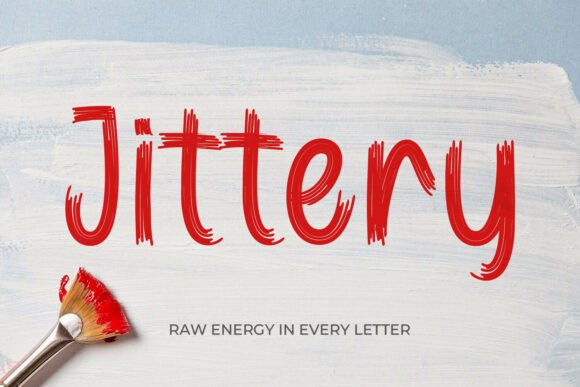
Jittery: A Display Font That Adds Authentic Energy to Your Brand
As a small business owner who designs my own labels, social posts, and packaging—often after the kids are asleep—I’ve learned that font choice isn’t just about “looking nice.” It’s about showing up consistently, clearly, and confidently across every customer touchpoint. That’s why Jittery stood out to me: it’s not another sterile, overused display font. It’s a hand-drawn brush typeface pulsing with raw energy and authentic texture—designed to embrace the beauty of chaos, not hide from it.
The “trembling” stroke style gives Jittery its distinctive voice: slightly uneven, human-made, full of movement. It feels alive—not stiff, not robotic, not overly polished. That makes it ideal for brands that want to signal creativity, warmth, independence, or craft-focused values. Think handmade candle makers, indie coffee roasters, wellness coaches, ceramic studios, or boutique skincare lines. If your customers respond to honesty over perfection, Jittery helps you speak that language visually.
Where Jittery Works Best in Real Business Materials
Because it’s a display font, Jittery shines where impact matters most—not as body text, but as intentional visual punctuation. I use it for:
It’s also surprisingly versatile across formats. I tested Jittery on matte sticker paper, kraft label stock, and web banners—and each time, its tactile quality translated. The slight imperfection isn’t a flaw; it’s proof of human effort, which builds trust with customers who value authenticity.
Keeping It Professional—Without Losing Personality
Yes, Jittery is expressive—but that doesn’t mean it’s unprofessional. In fact, using it intentionally strengthens professionalism by reinforcing consistency. When your Instagram post, product tag, website banner, and business card all share the same energetic headline treatment, customers begin to recognize your brand instantly—even without your logo front and center.
That recognition builds credibility. A bakery using Jittery for “Fresh Daily” on their chalkboard menu *and* their Instagram bio header signals intentionality—not randomness. Same for a coaching business using it only for session titles (“Clarity Call,” “Reset Workshop”) while keeping body copy in a readable sans serif. That balance says: “We’re thoughtful, not chaotic.”
Smart Pairing & Practical Readability Tips
Jittery works best as an accent—not the whole cast. Pair it with a neutral, highly legible companion: a modern sans serif for digital and print body copy, or a warm serif for printed brochures and packaging descriptions. Avoid pairing it with other decorative fonts; let Jittery be the star, supported by calm, functional type.
For readability, keep these real-world tips in mind:
1. Use Jittery at 24pt or larger for printed materials like posters or menus.
2. On product labels under 2 inches wide, test print at actual size—some letters may need slight tracking adjustment.
3. In digital ads or social posts, place Jittery text over solid, high-contrast backgrounds (not busy photos) so the texture stays clear.
4. Never use it for addresses, phone numbers, or legal disclaimers—save those for your supporting font.
Before applying Jittery across your entire brand system, run a simple test: design one product label, one Instagram post, and one email header using it. Print them. View them on your phone. Ask a friend who’s never seen your brand: “What kind of business does this feel like?” If their answer matches your intent—warm, creative, grounded—you’re on track.
Also, double-check the commercial license. As a small business owner, I’ve learned the hard way that not all fonts allow use on physical products, merchandise, or client-facing templates. Jittery is a premium font—make sure your license covers packaging, digital downloads, or resale items if that applies to your work. Reputable foundries clearly state usage rights; when in doubt, email them directly.
At the end of the day, Jittery isn’t about trend-chasing. It’s about finding a display font that reflects how you actually work—hands-on, imperfect, passionate—and helping customers feel that truth across every surface they see your brand on. Whether you’re printing 50 candle labels or launching your first Shopify collection, Jittery gives your visuals a pulse. And in a crowded marketplace, that pulse can be the difference between blending in and being remembered.